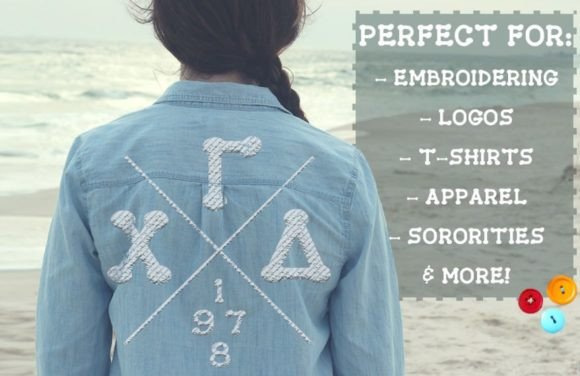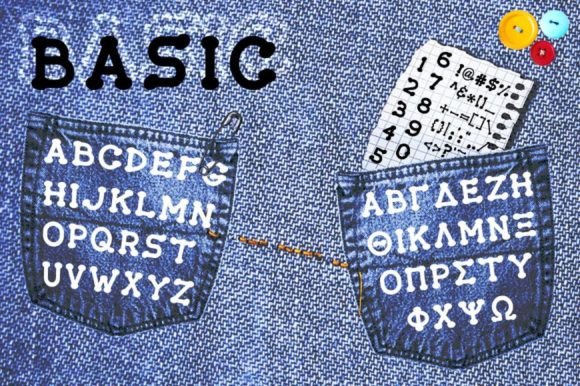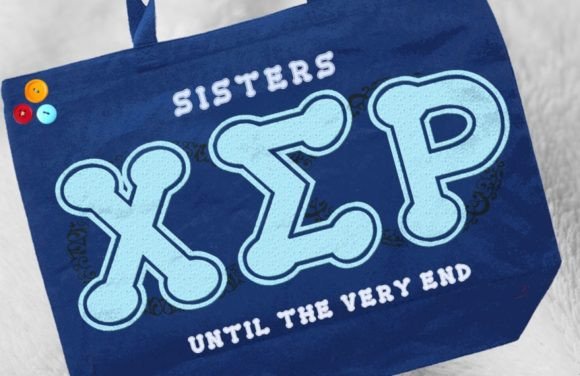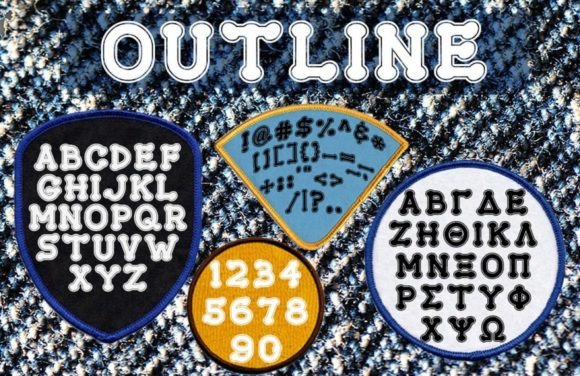
Applique Font
Applique is a fun and unique display font. Masterfully designed to become a true favorite, this font has the potential to bring each of your creative ideas to the highest level!